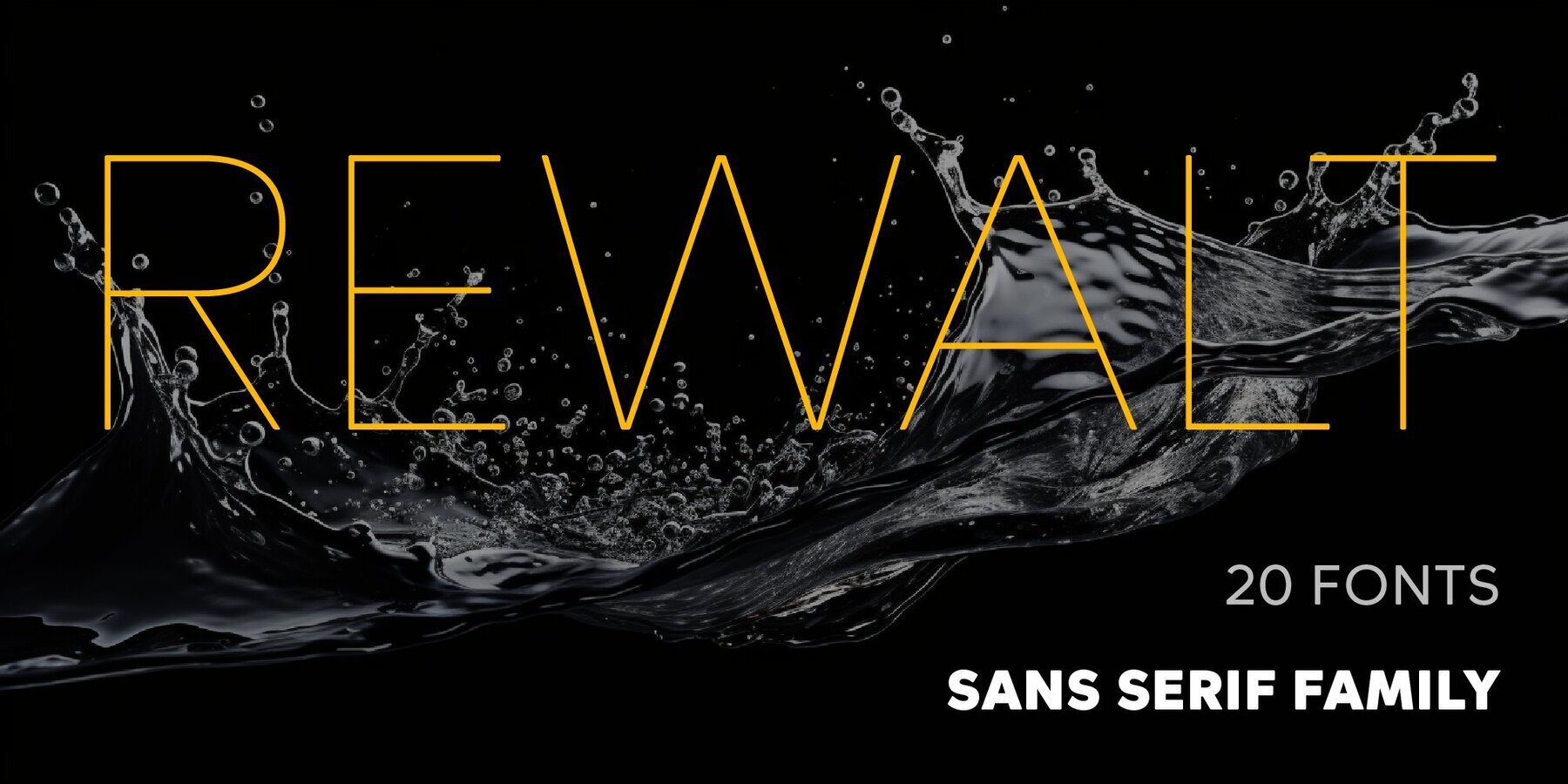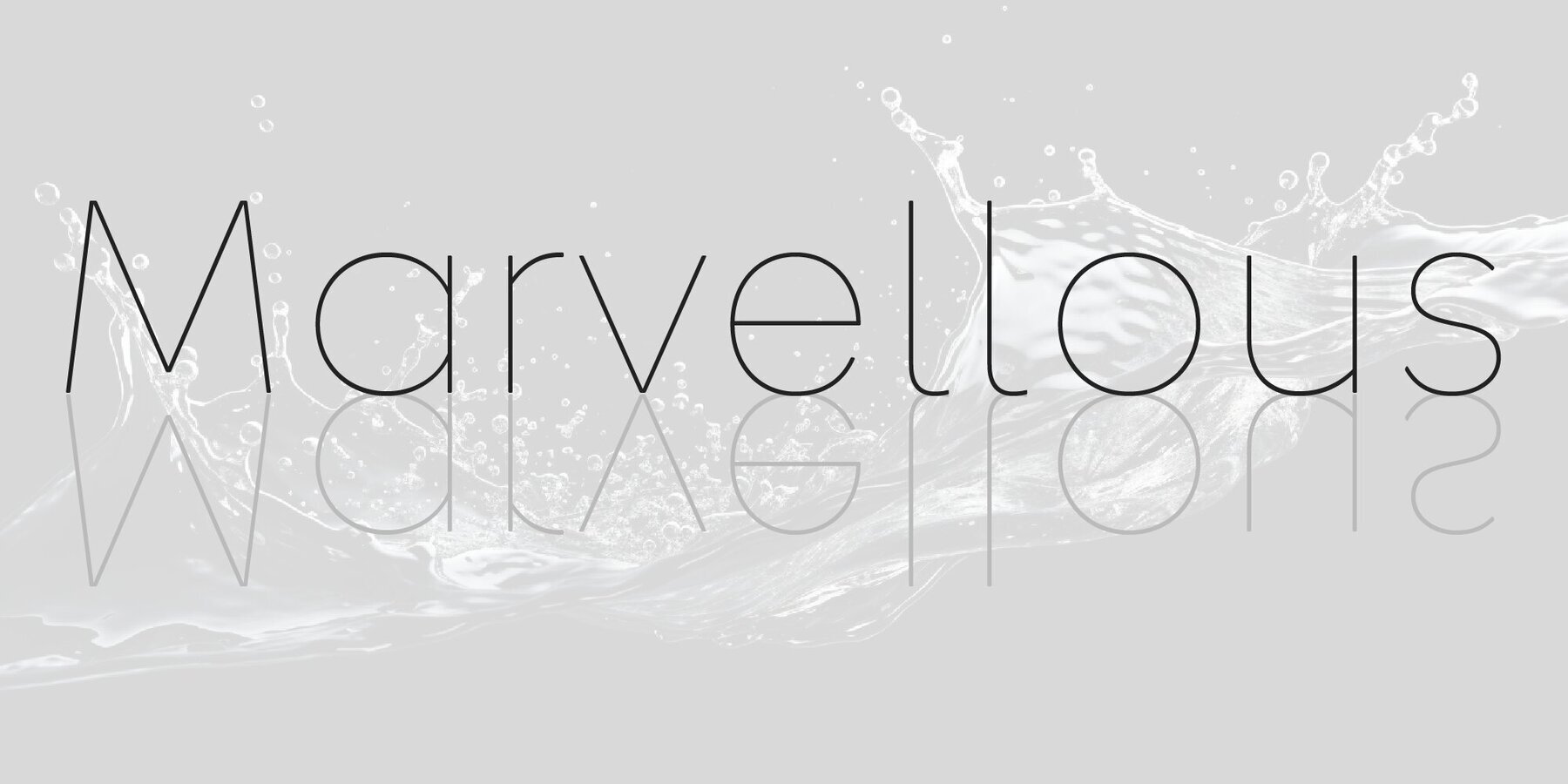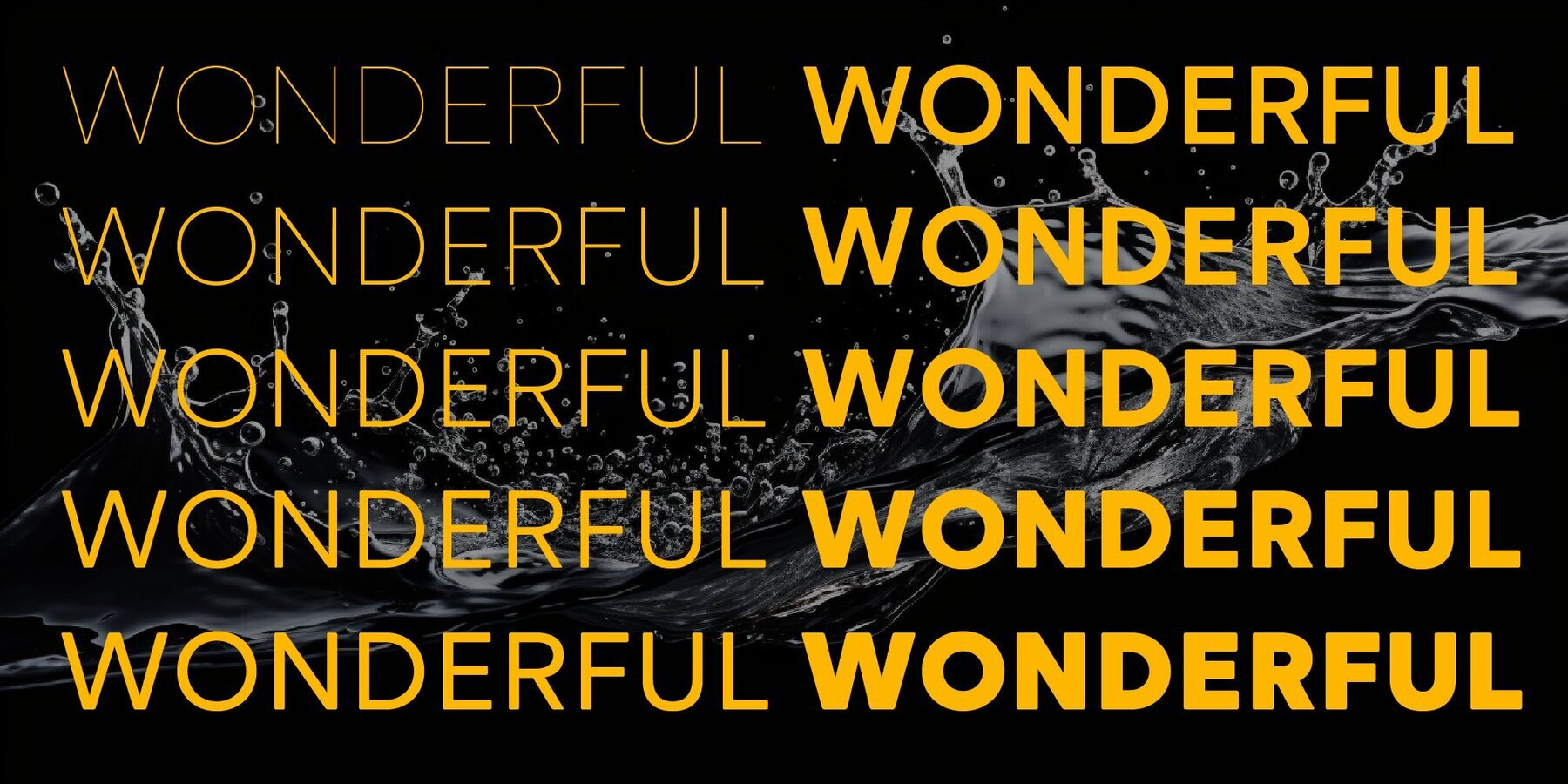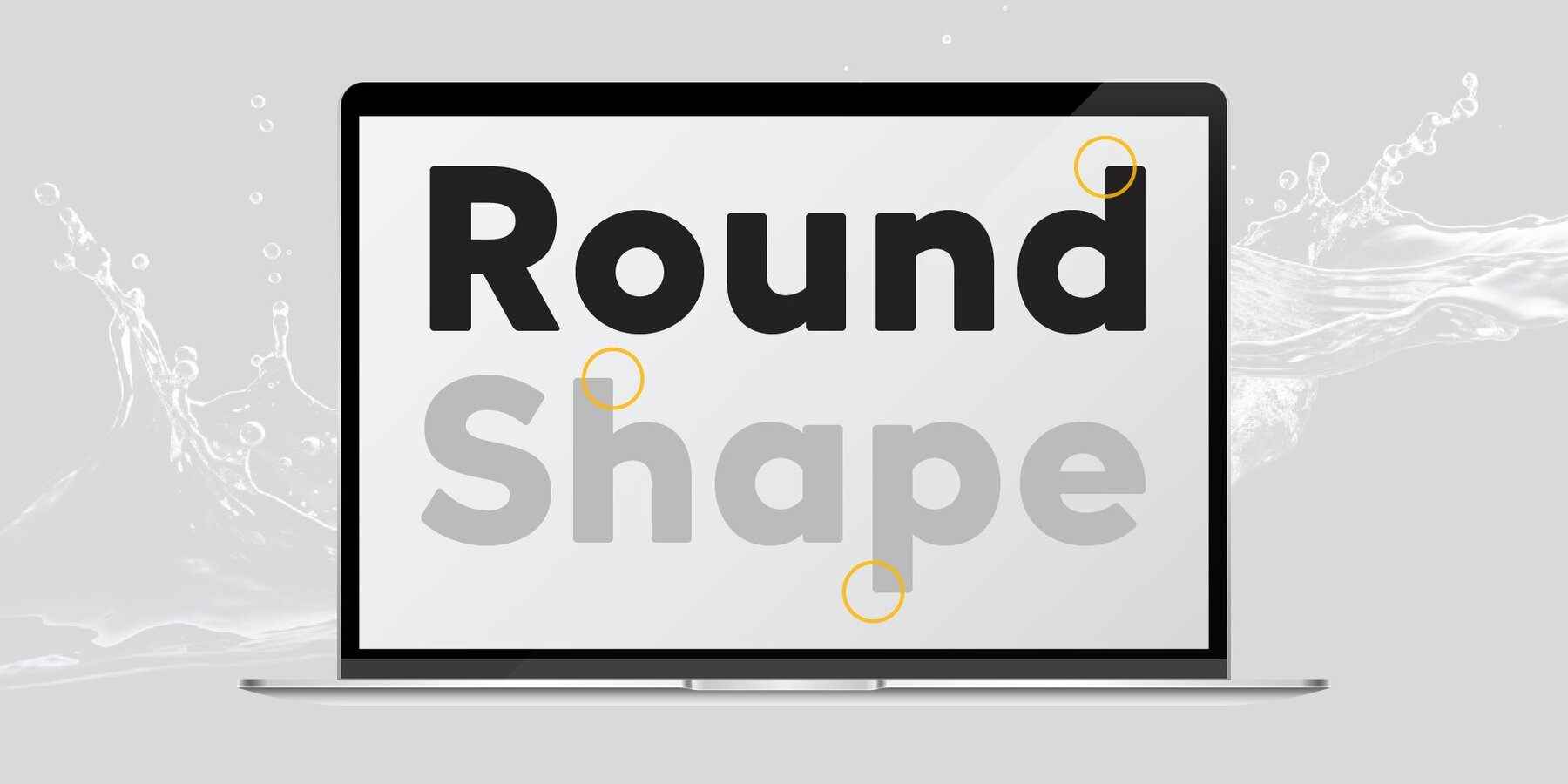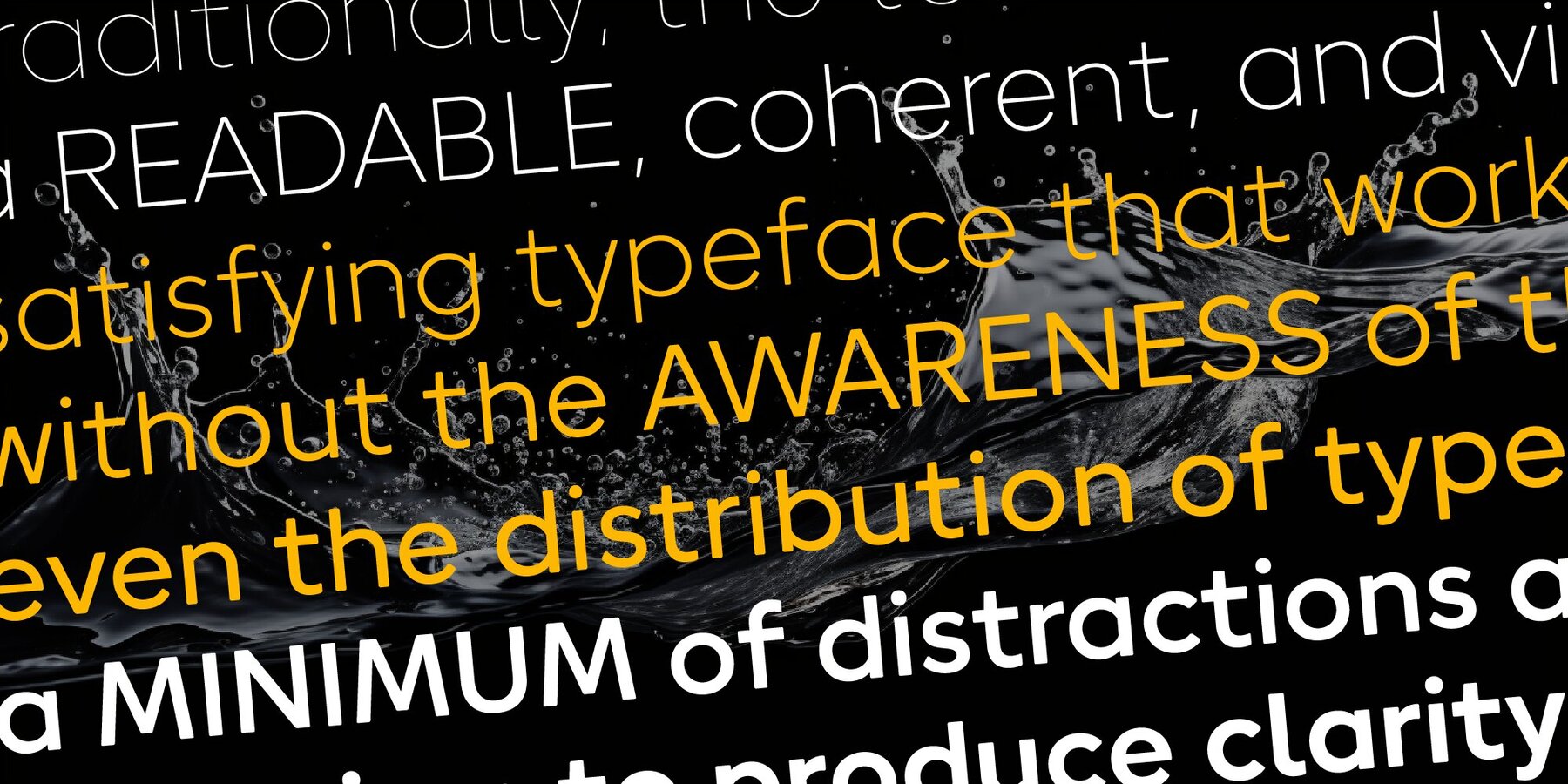
Rewalt Font
Rewalt family is perfectly suited to headlines, logotypes, books, magazines, motion graphics, and use on the web and TV. Rewalt is an OpenType font family that converts any text – including the most complex layouts – into an expressive design. This font is a modern rounded sans serif typeface that can be used as a headline or as a body copy typeface.
Savchuk Mykola began his career as a graphic designer. Over time, he had a desire to create a font that would reflect his view of typography. ‘They say that all ingenious things are simple, although unique. In my future projects, I want to reflect simplicity on the one hand and uniqueness on the other, providi...
-136 glyphs have been added